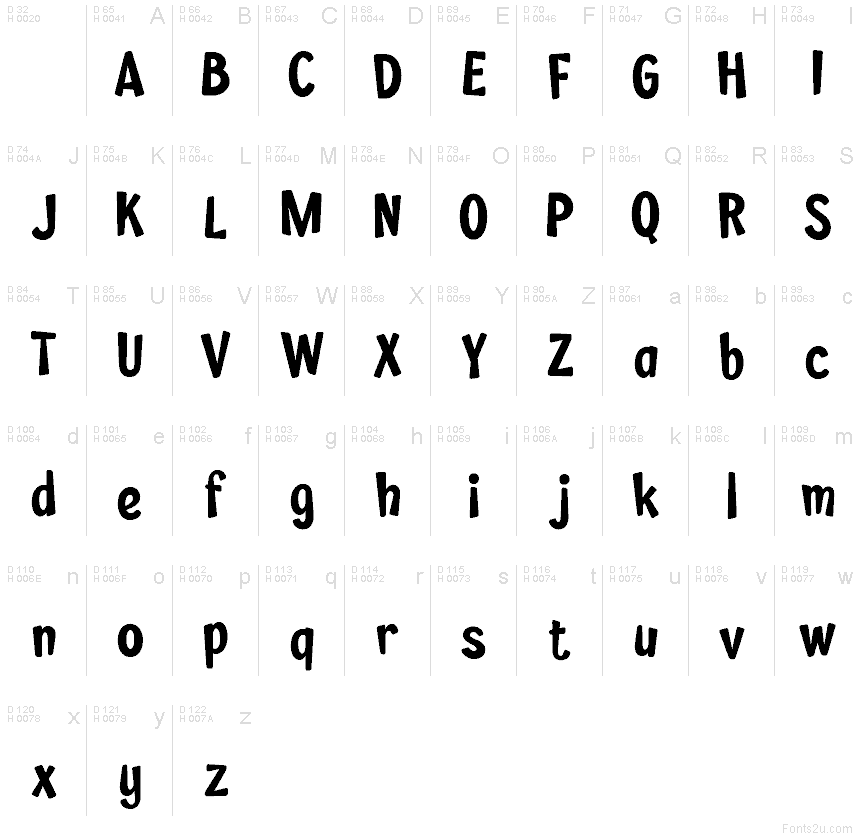
CS Swiper Regular Demo
CS Swiper font by Craft Supply Co. is a display typeface that creatively combines a modern style with engaging and lively texture. Its playful comic nature is defined by smooth curves, subtle imperfections of the outlines, and casual mood. The smoothly flowing letters show great visual harmony and allow for easy readability when words are formed.